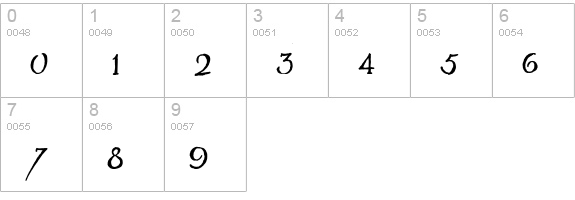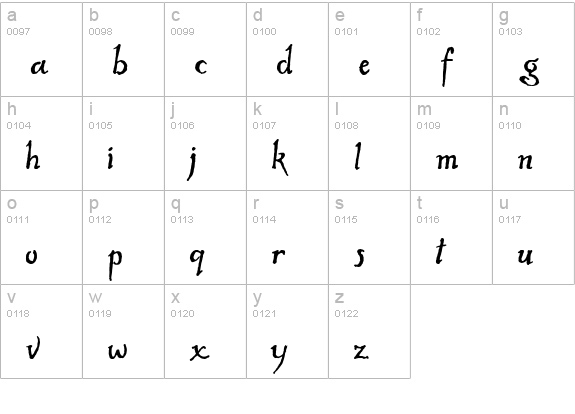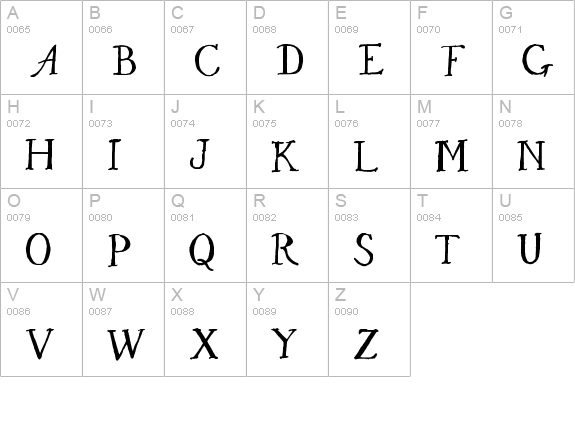
CK Inky Font Details
Introducing CK Inky Font, a charming and playful typeface that will add a touch of whimsy to your design projects. This unique font features irregular strokes and a hand-drawn appearance, giving it a fun and casual feel. Perfect for adding a personal touch to invitations, posters, and more, CK Inky Font is sure to stand out. The best part? CK Inky Font is available for free download at FontsMarket.com. Whether you're a designer looking to add a creative flair to your work or someone who simply loves experimenting with different fonts, CK Inky Font is a must-have addition to your collection. Don't miss out on this fabulous font – download it today and let your creativity shine!